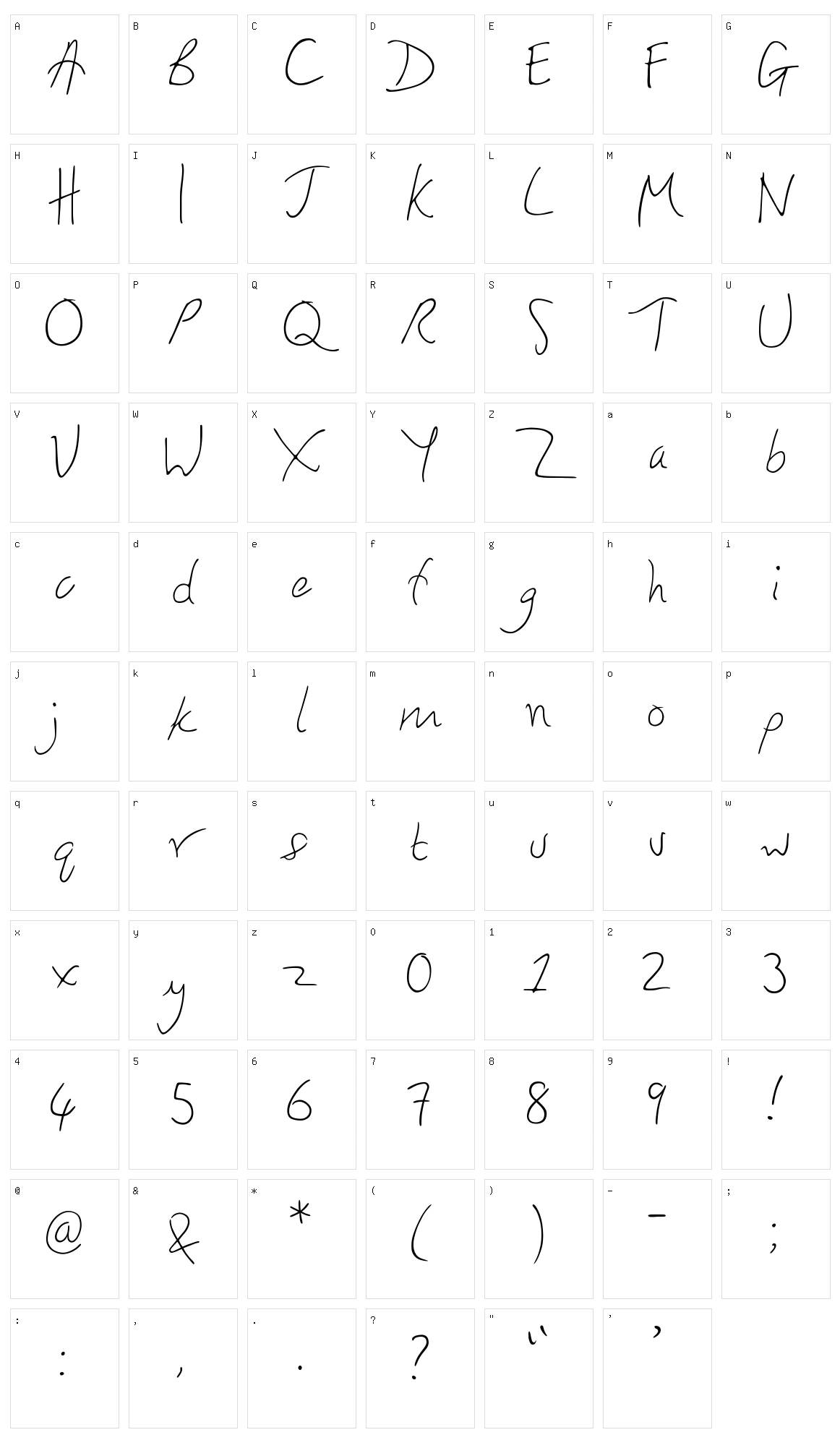
The free font Honey I Stole Your Jumper is carefully designed by James Shields, showcasing a thoughtful balance of creativity and usability and falls under the Script font style. When you download the ZIP file, it contains only 11.64 KB of font files, making it lightweight and quick to download. Please review the license details below to understand permitted usage and distribution rights. If license information is not available, we recommend using this font for personal projects only or contacting the author directly for commercial usage permissions.